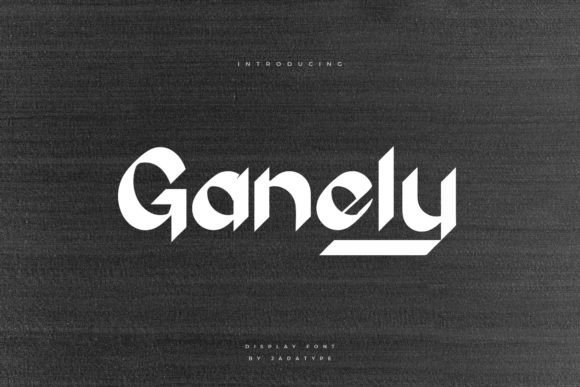
Meet the Font that Brings a Smile to Your Designs
Have you ever stared at a blank canvas, struggling to find the perfect font to bring your creative vision to life? I know I have. And then, like a breath of fresh air, you stumble upon that one font that makes everything fall into place. For me, that font is the Ganely Font – a charming, easy-to-read display font that’s sure to put a smile on your face.
Designed to convey impeccable friendliness, the Ganely Font is perfect for a wide range of applications, from crafts and digital design to presentations and greeting cards. Its value lies in its versatility, making it an essential tool for designers who want to add a touch of warmth and personality to their projects. Whether you’re a seasoned pro or just starting out, the Ganely Font is sure to become your go-to choice for any occasion.
- Unique Characteristics: Ganely Font features a unique blend of modern and classic elements, with a distinctive x-height and a range of nuanced letterforms that make it suitable for a wide range of typographic applications.
Ganely Font Review
I recently had the chance to work with the Ganely font, and I must say it’s an interesting addition to the font family. ✨ One of the things that works well is its unique aesthetic, which can add a touch of sophistication to any design. The font’s bold and geometric shape is sure to grab attention.
Another aspect that I appreciate is the high level of customization. The font comes in multiple weights and styles, allowing designers to choose the perfect fit for their project. ✨ This level of flexibility is a major plus, especially when working with clients who have specific design preferences.
However, there are some limitations to consider. ⚠️ For one, the font may not be suitable for all types of content. Its bold design can make it difficult to read at smaller font sizes, which may be a concern for designers who need to convey a lot of information.
Here are some key points to consider:
- Unique aesthetic adds sophistication to designs ✨
- High level of customization with multiple weights and styles ✨
- May be difficult to read at smaller font sizes ⚠️
- Not suitable for all types of content ⚠️
Overall, I think the Ganely font is a solid choice for designers who want to add a touch of elegance to their work. While it may have some limitations, its unique design and high level of customization make it a valuable addition to any font collection.
Tips: Use Ganely Font for titles and headings to add a touch of elegance to your designs.
Tips: Use Ganely Font for creative typography projects, such as hand-lettering or typography-based art.
Tips: Use Ganely Font for presentations and documents that require a professional and elegant touch.
Ganely Font is ideal for:
- Typography-based art and creative projects
- Presentations and documents that require a professional touch